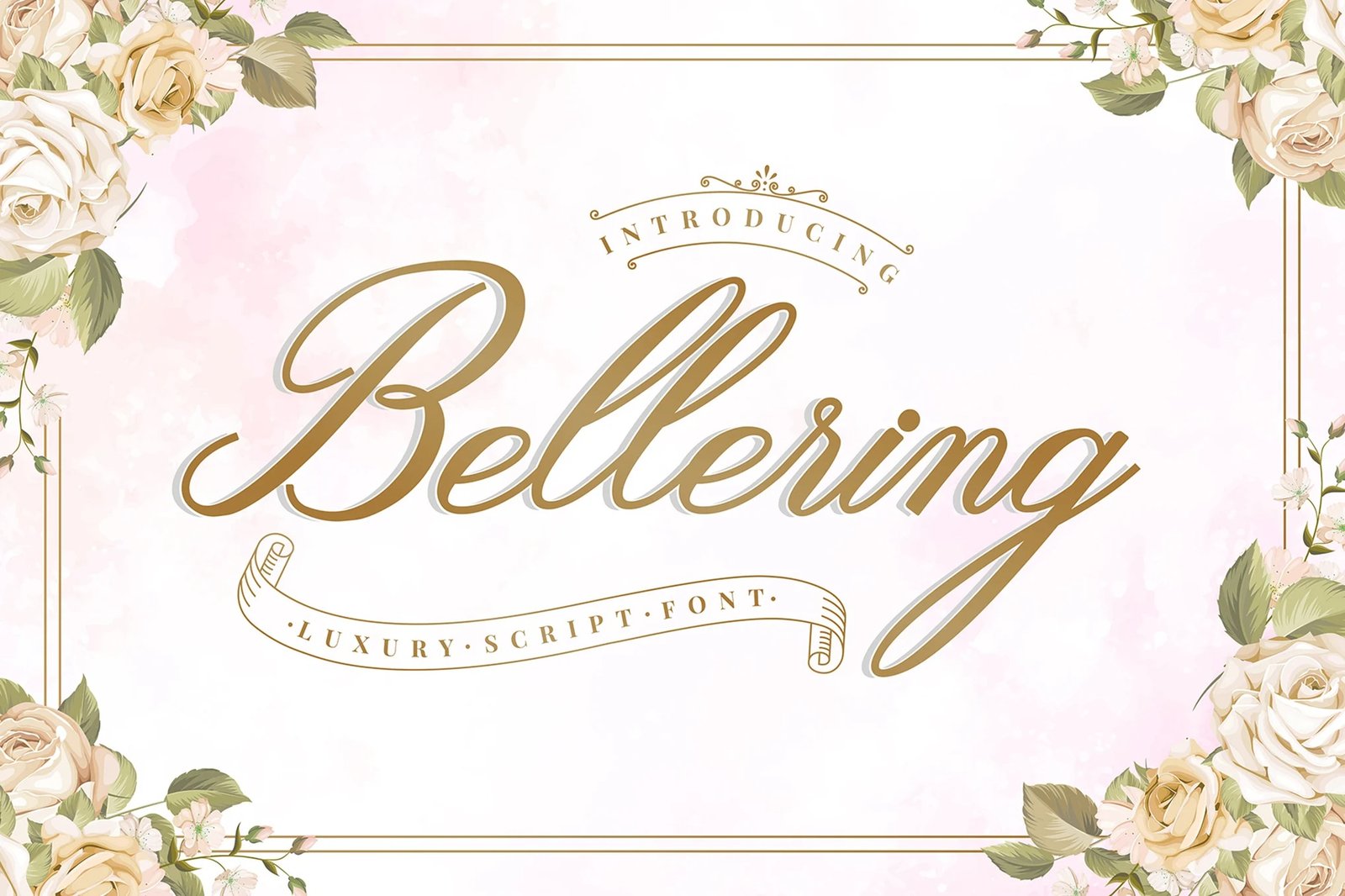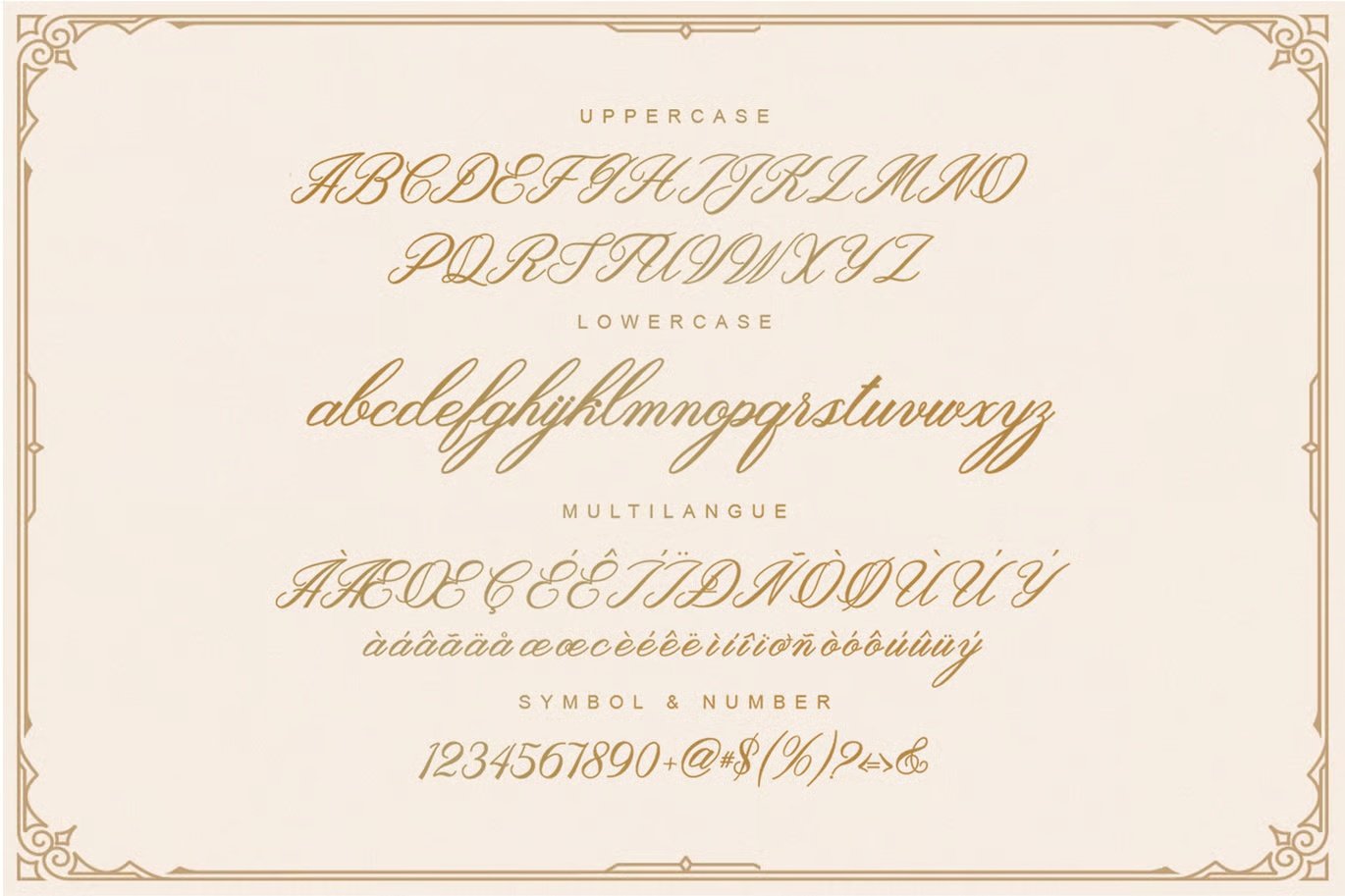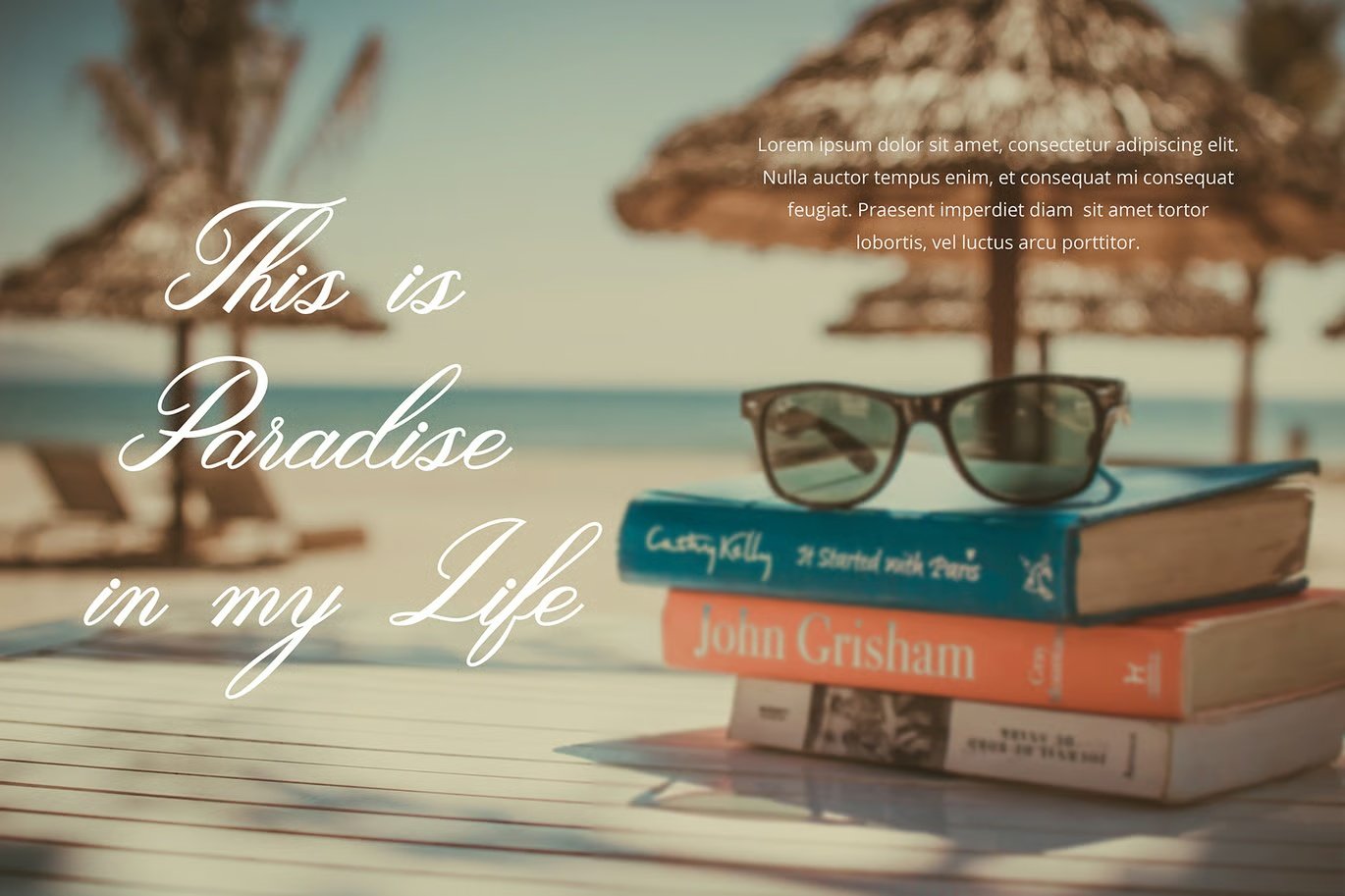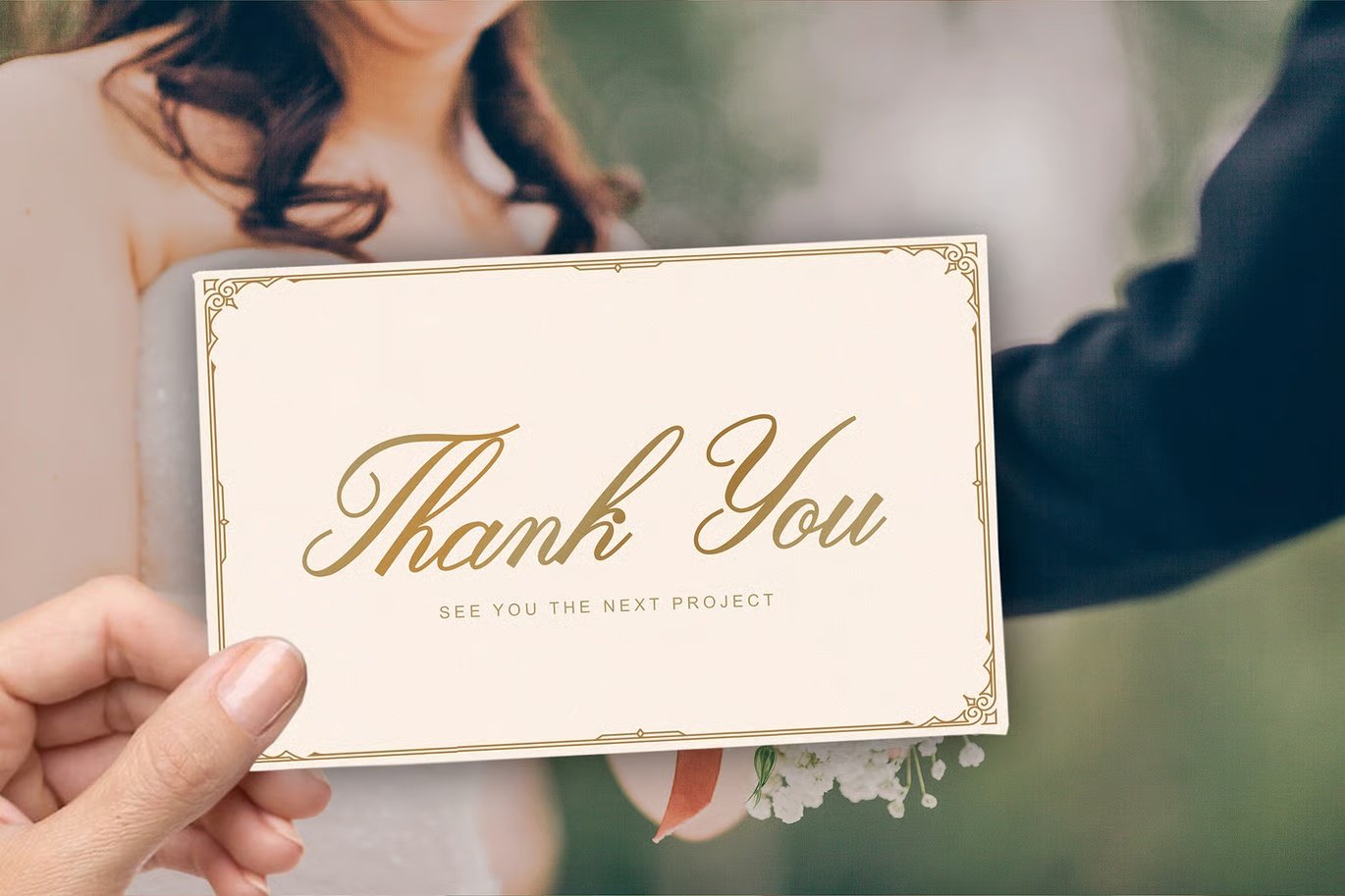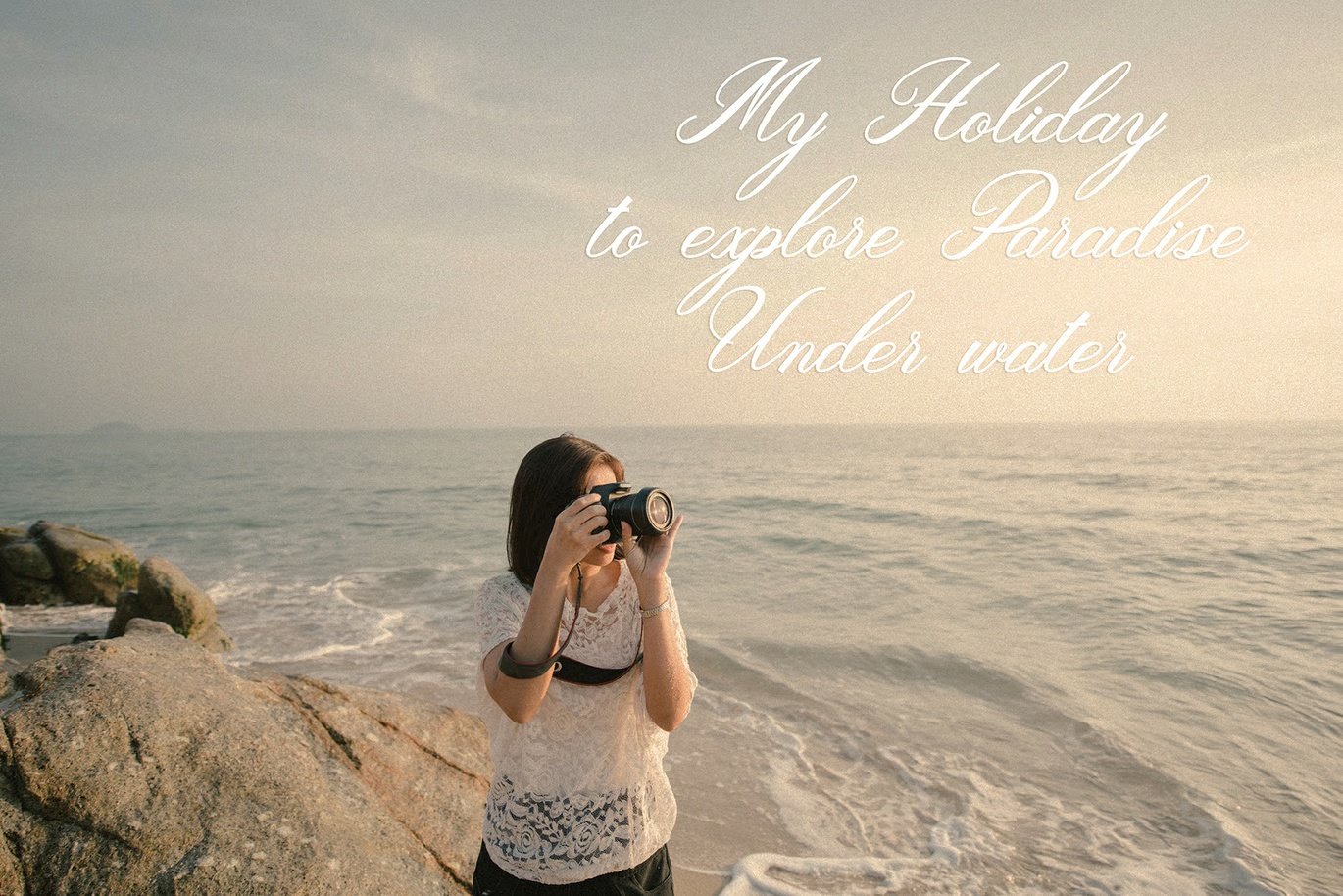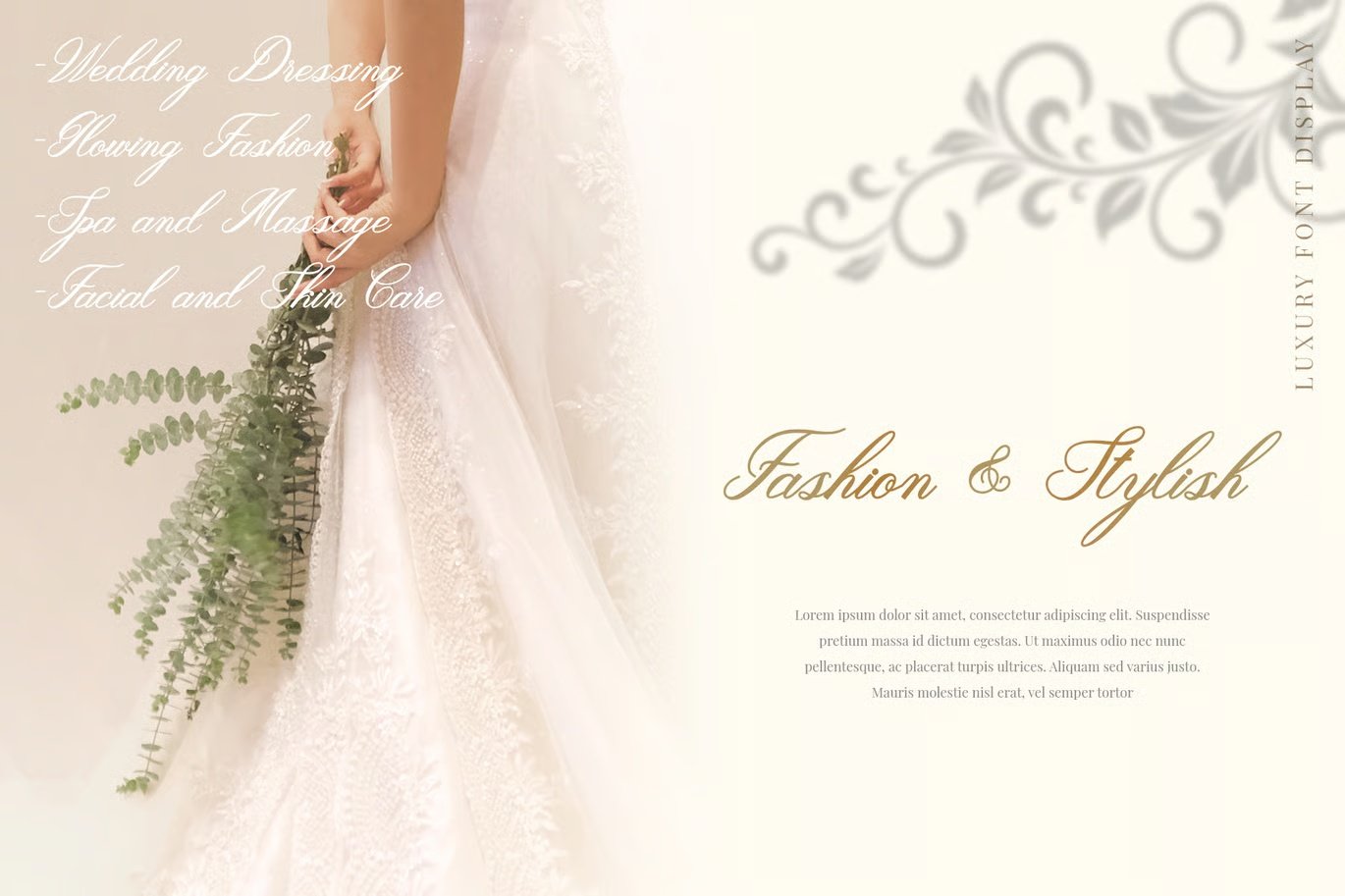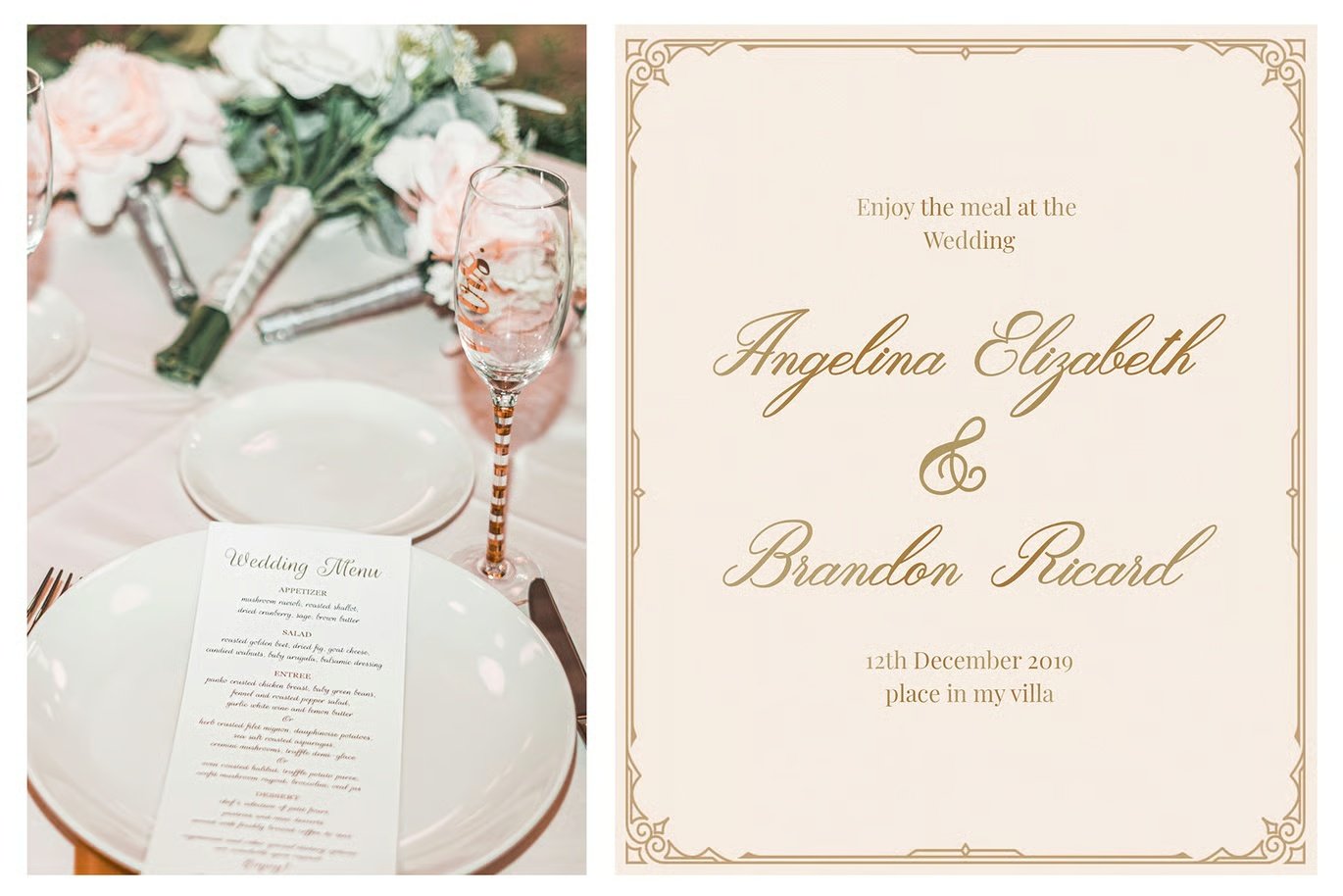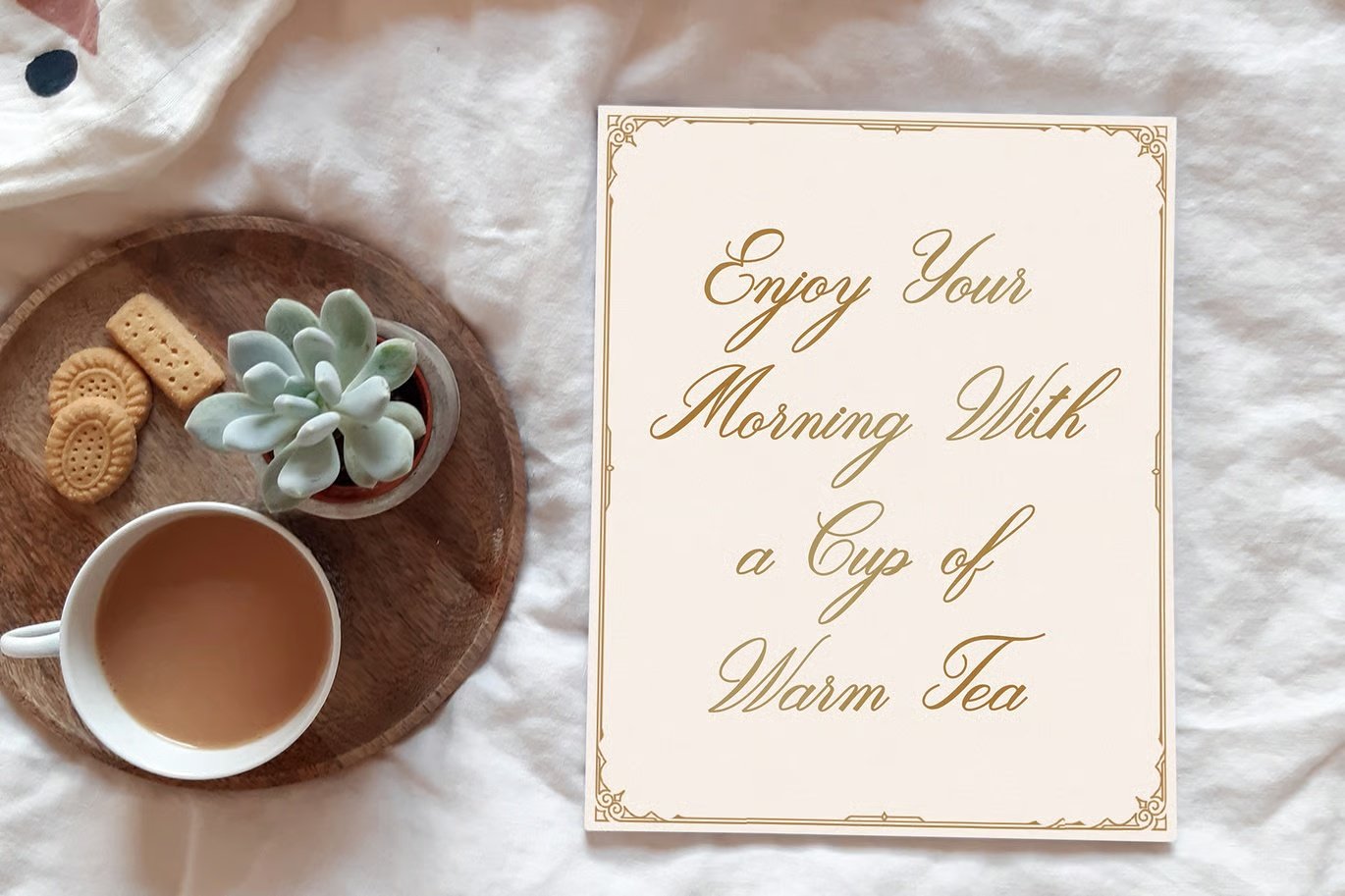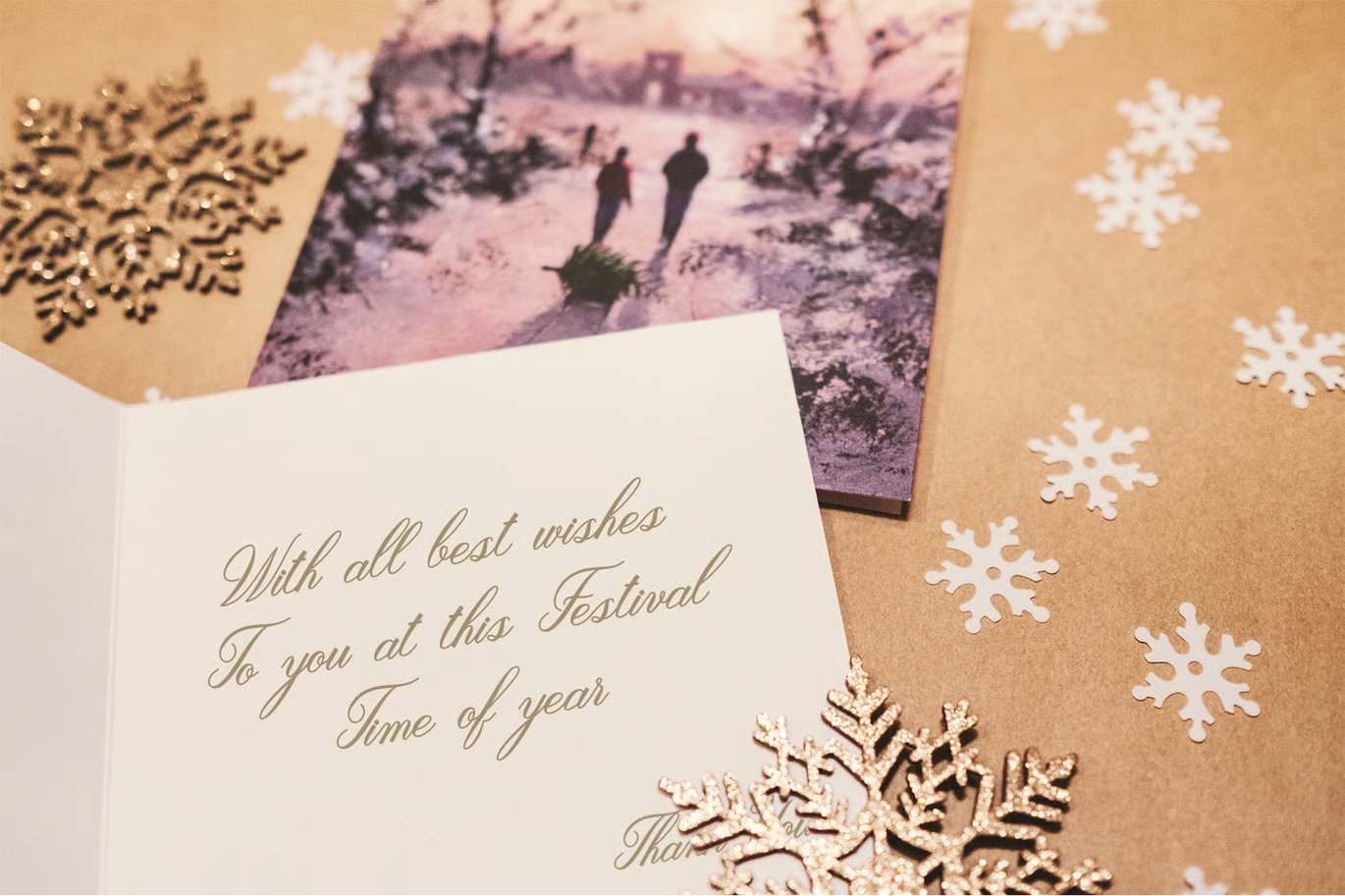
Bellering Script Font
Bellering is a scipt fontThis font can be used in various applications ranging from greeting cards, invitations, wedding card, hotel, fashion, spa, salon, calligraphy that you can create beautifully. — Included :